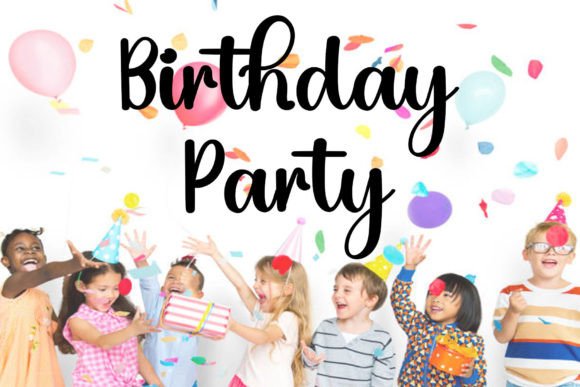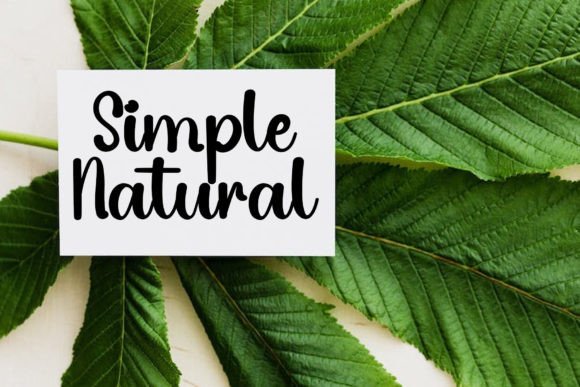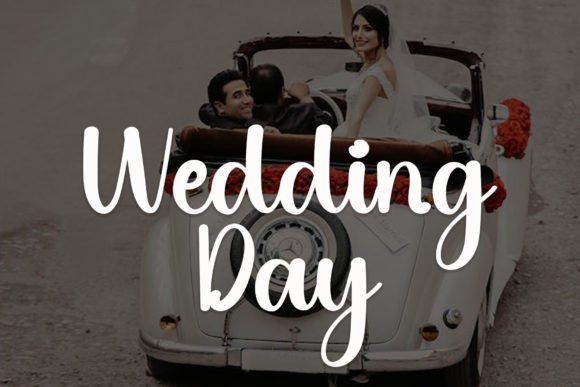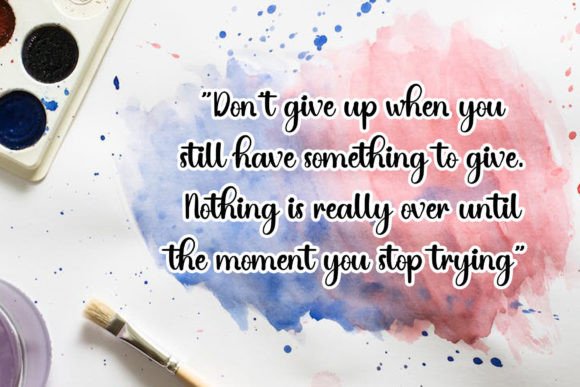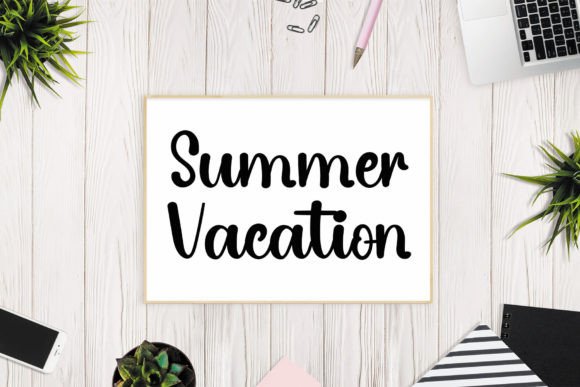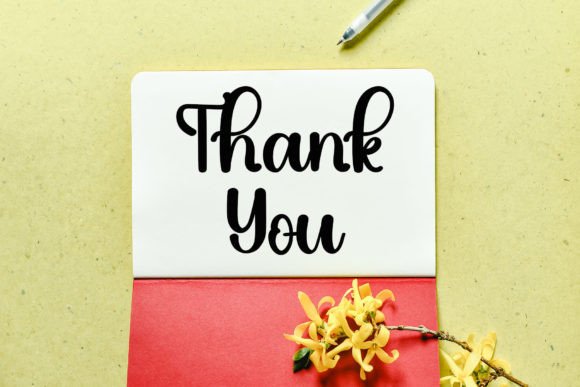
Introduction to Smarthing Font Font
Fonts play a crucial role in design, and the Smarthing Font font is a typeface that brings both character and versatility to any project. Whether you’re working on a branding project, a website, or a print design, the Smarthing Font font offers a unique style that can elevate your work.
Smarthing is a neat and beautiful font described by an elegant touch, perfect for your favorite projects.
Fall in love with its incredibly distinct and timeless style, and use it to create spectacular designs .
Key Features of Smarthing Font Font
Why Choose Smarthing Font Font?
The Smarthing Font font is more than just a typeface – it’s a design tool that helps you communicate your message with style and clarity. Its unique character set and versatile design make it suitable for a wide range of applications, from elegant invitations to bold headlines.
With its carefully crafted letterforms and balanced proportions, the Smarthing Font font ensures readability and visual appeal across all mediums.
What makes Smarthing Font font special?
The Smarthing Font font stands out with its unique design, exceptional readability, and versatility across various design applications.